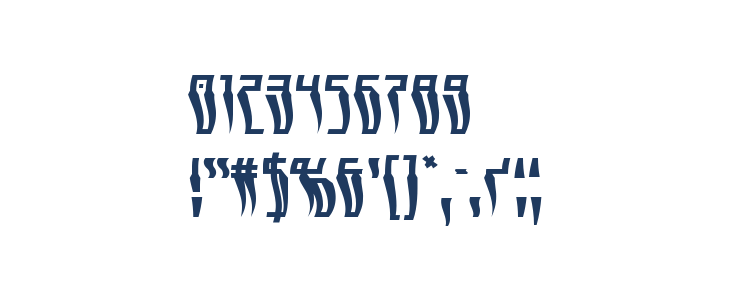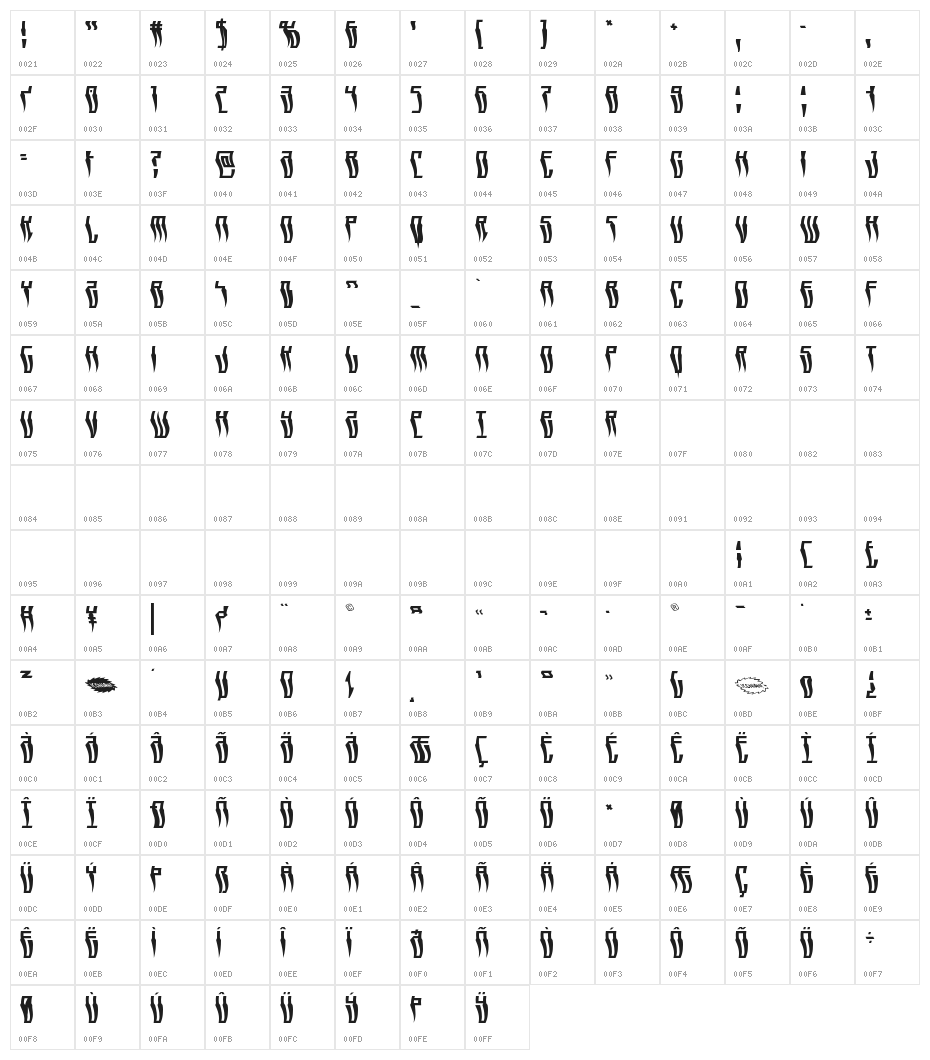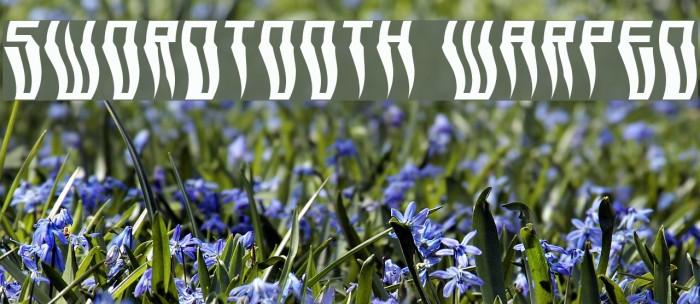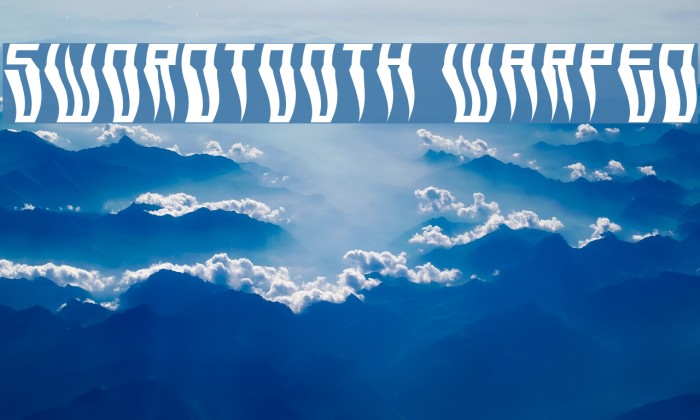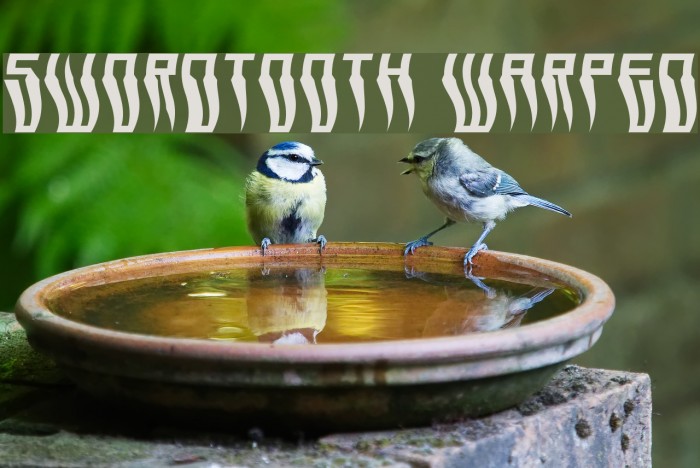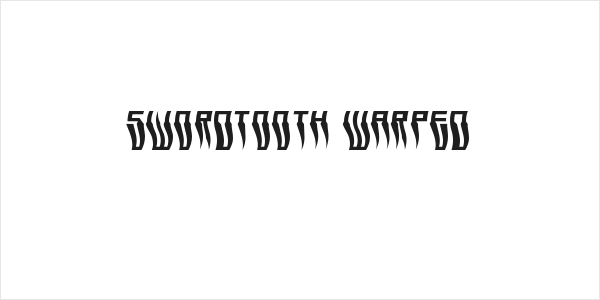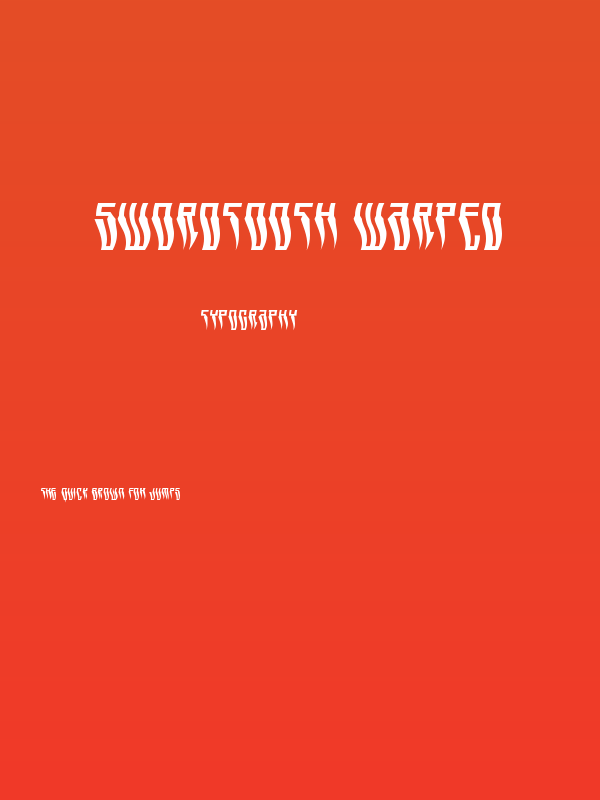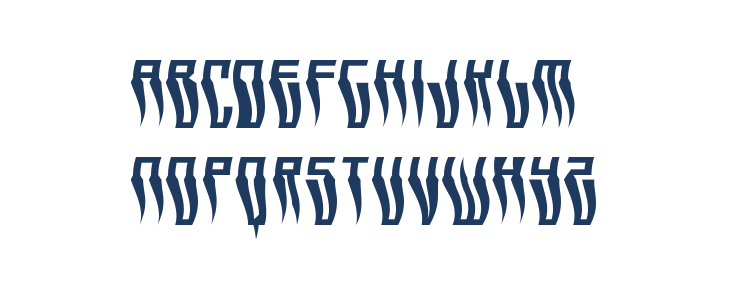
Swordtooth Warped Font
Swordtooth Warped Description
This font features a bold and aggressive design with sharp, angular edges and a distinct, warped appearance. The characters are elongated with pointed ends, giving them a fierce and dynamic look. The uppercase and lowercase letters maintain a consistent style, with each character exhibiting a unique twist that adds to the overall edgy aesthetic. The numbers and special characters are crafted in the same style, ensuring uniformity across all glyphs. This font's striking design makes it ideal for projects that require a strong visual impact.
| Overall Style | Modern, Edgy |
| Proposed Projects | Ideal for video game titles, movie posters, band logos, and edgy branding projects. |